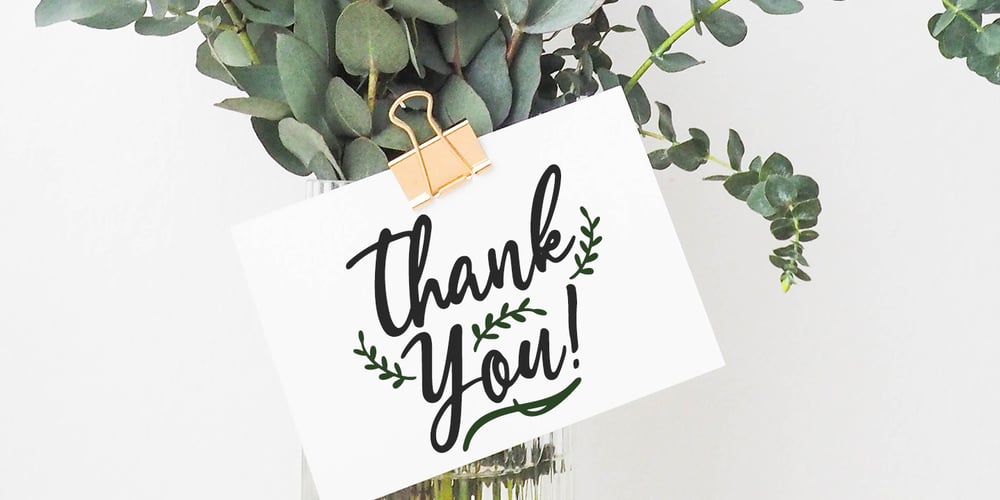
Estylle Madison
Estylle Madison font
Estylle Madison Font Family was designed by Rian Rahardi and published by Creatype Studio. Estylle Madison contains 1 styles and family package options. Estylle Madison is classy, elegant and super stylish modern calligraphy with natural handwritten movement. Estylle Madison font is perfect for many different project such as logos & branding, invitations, stationery, wedding designs, social media posts, advertisements, product packaging, product designs, labels, photography, watermarks, special events and more. Estylle Madison comes with uppercase, lowercase, numerals, punctuation and many variations on each character, including OpenType alternates and common ligatures to let you customize your designs.